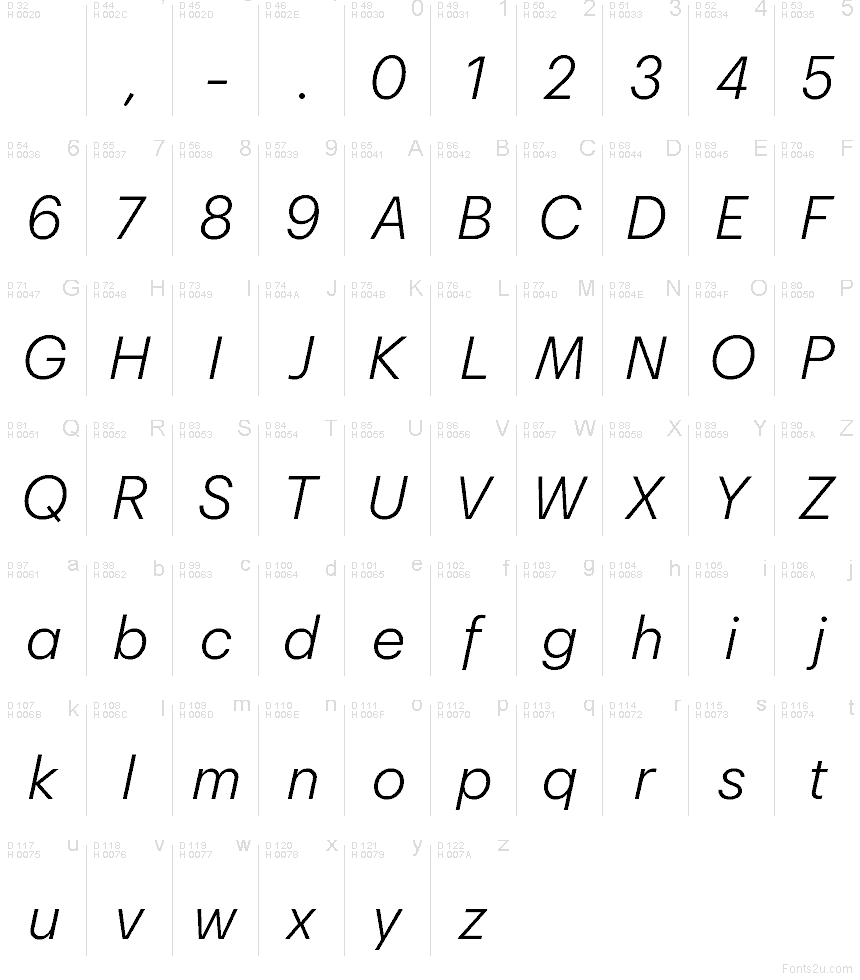
Encamp Test Light Italic
Encamp Test Light Italic font by Punchform is a free sans serif typeface that gives you emphasis without shouting. The letters are slim, gently slanted, and evenly spaced, so callouts and side notes feel airy and precise instead of cramped or fussy. There’s a soft, brushed quality to the curves that keeps it from looking cold, making it a subtle way to highlight information in clean, modern layouts.
Using Encamp Test Light Italic, your supporting text can stay readable at smaller sizes while still feeling distinct from the main copy. This free font works beautifully for captions, image credits, UI labels, pull quotes, footnotes, and sleek product details. Try pairing it with a regular or medium weight from the Encamp Test family for body text, using this Light Italic strictly for secondary emphasis to keep hierarchy clear and consistent.